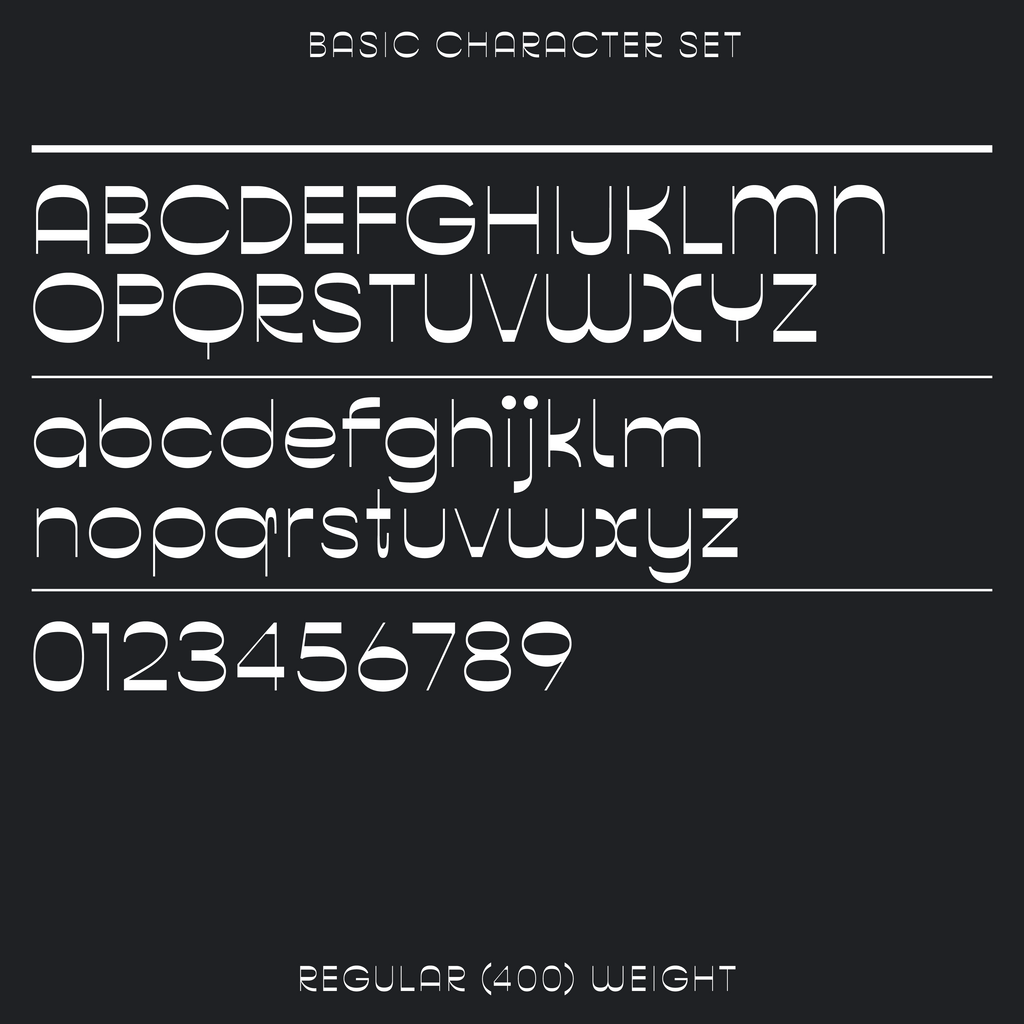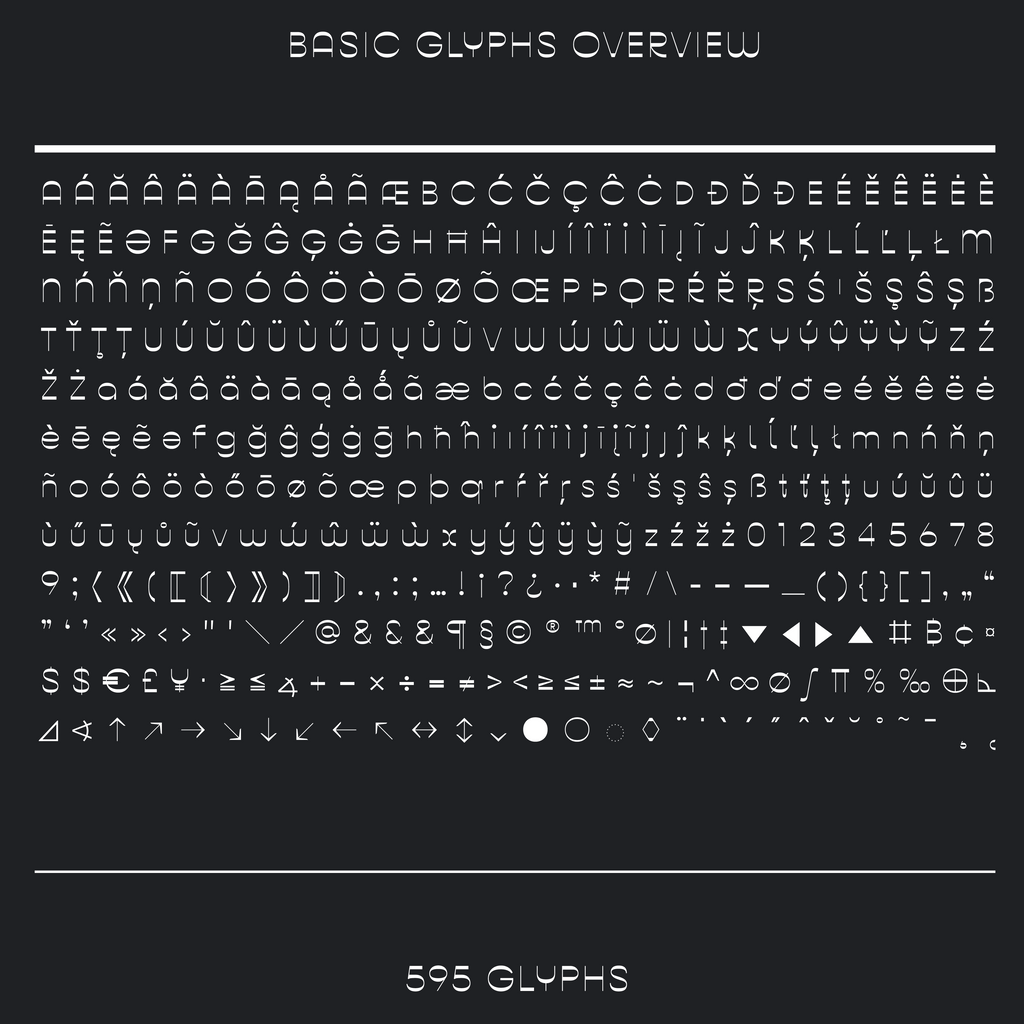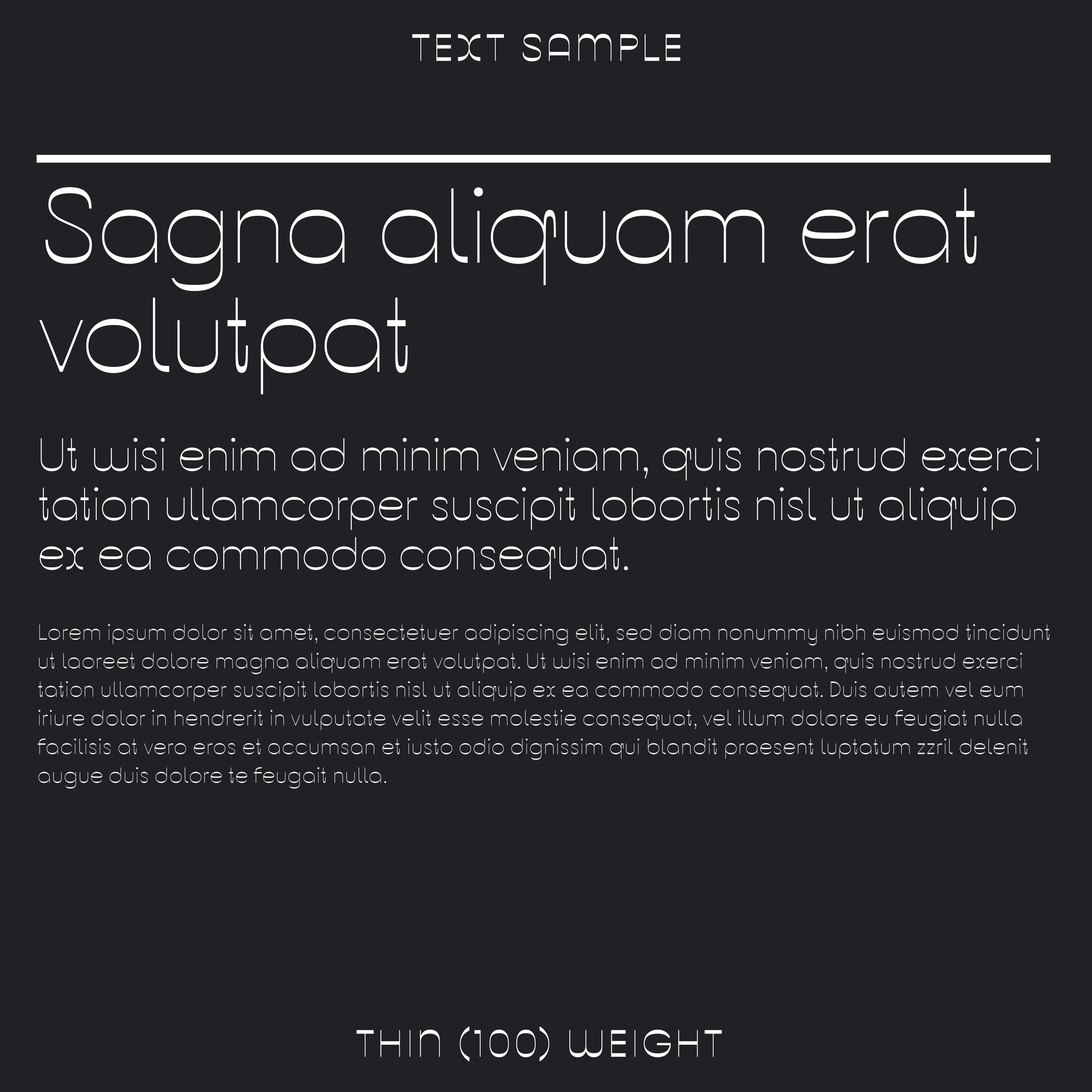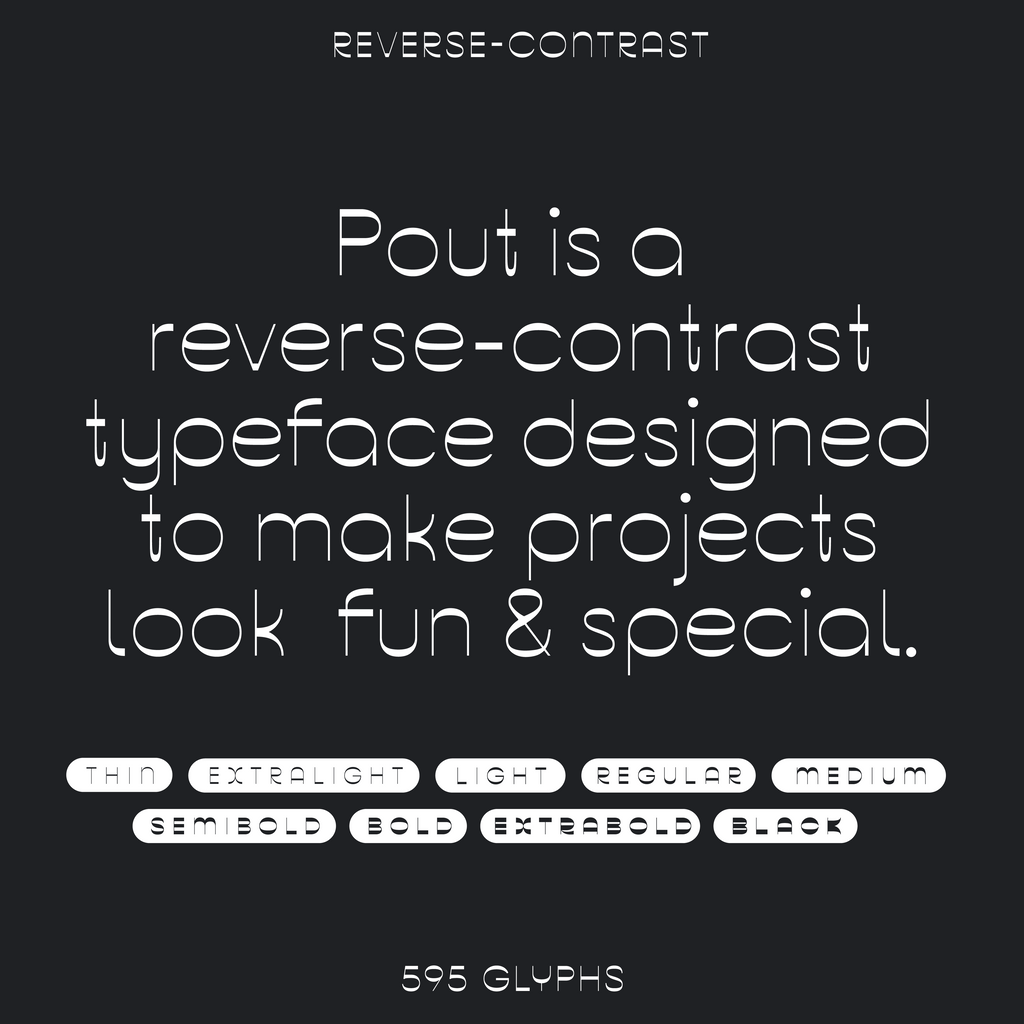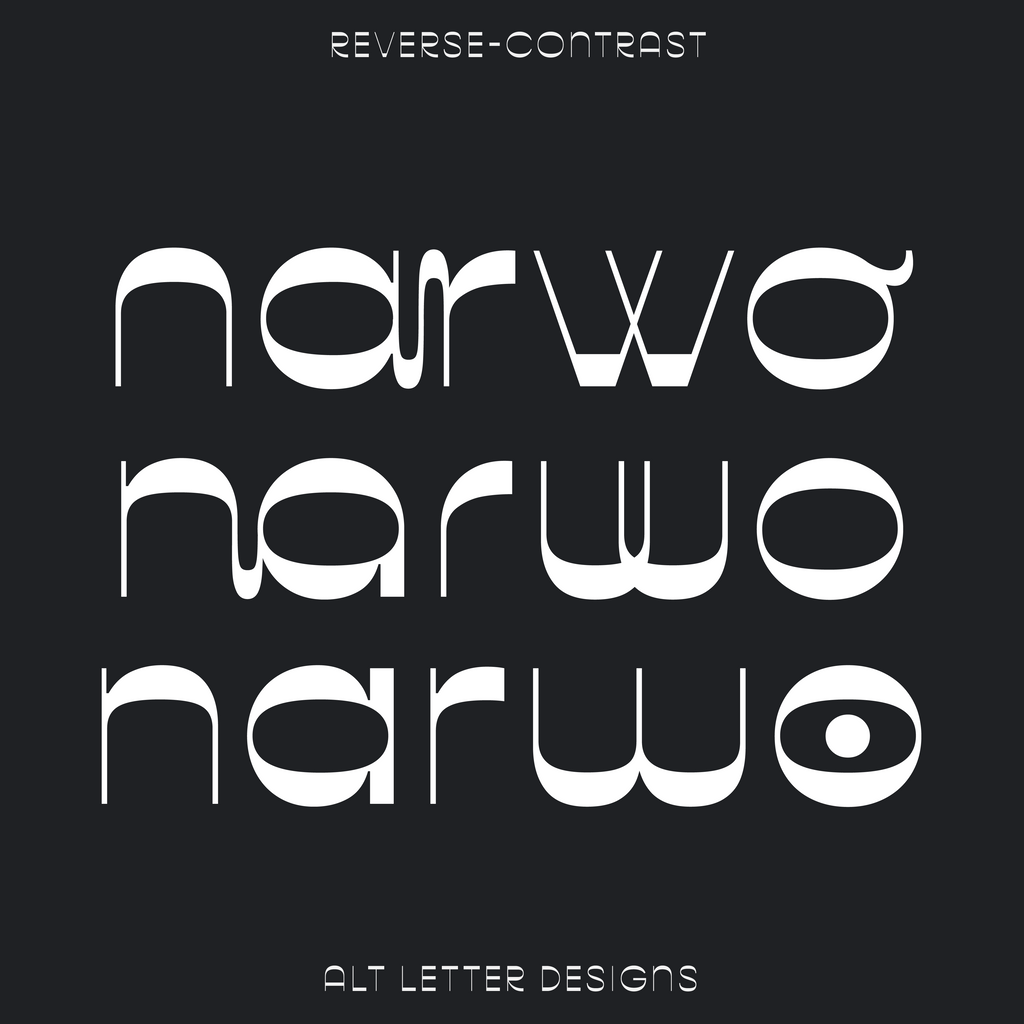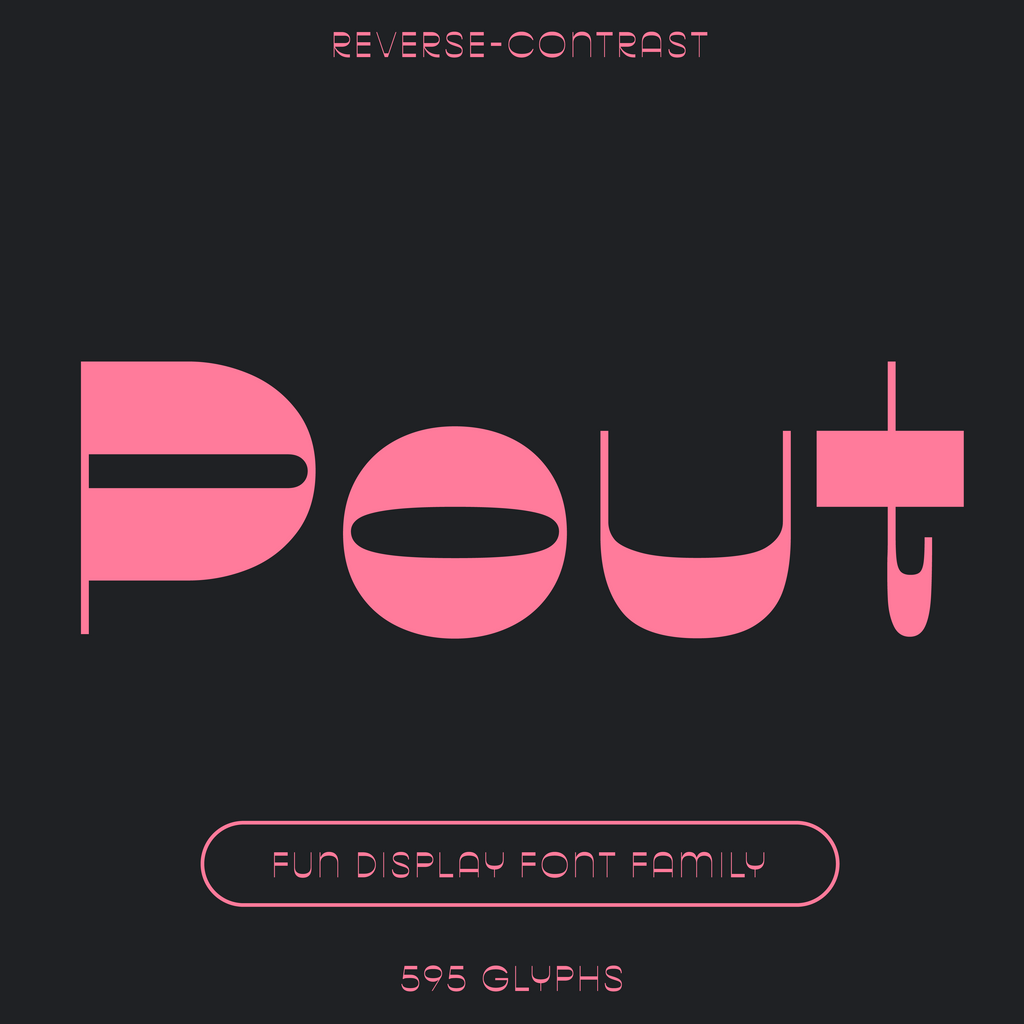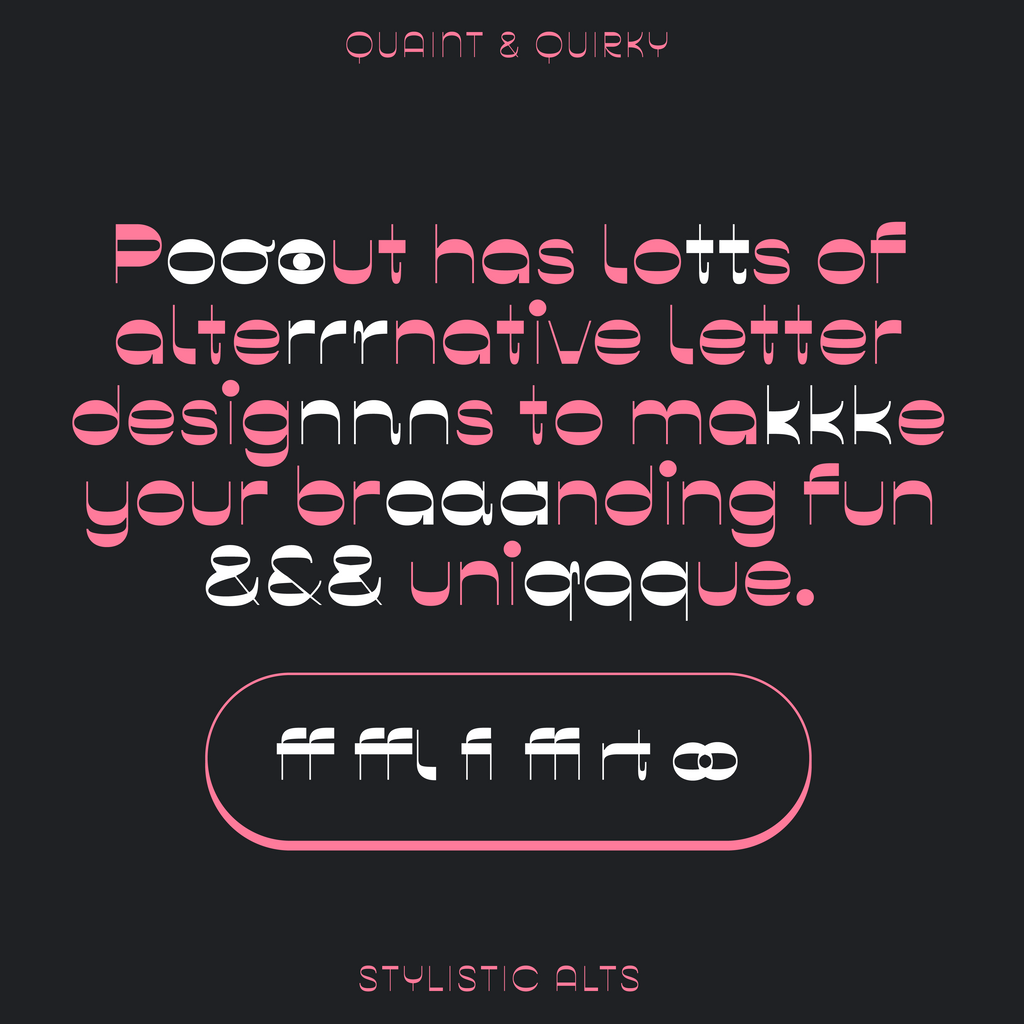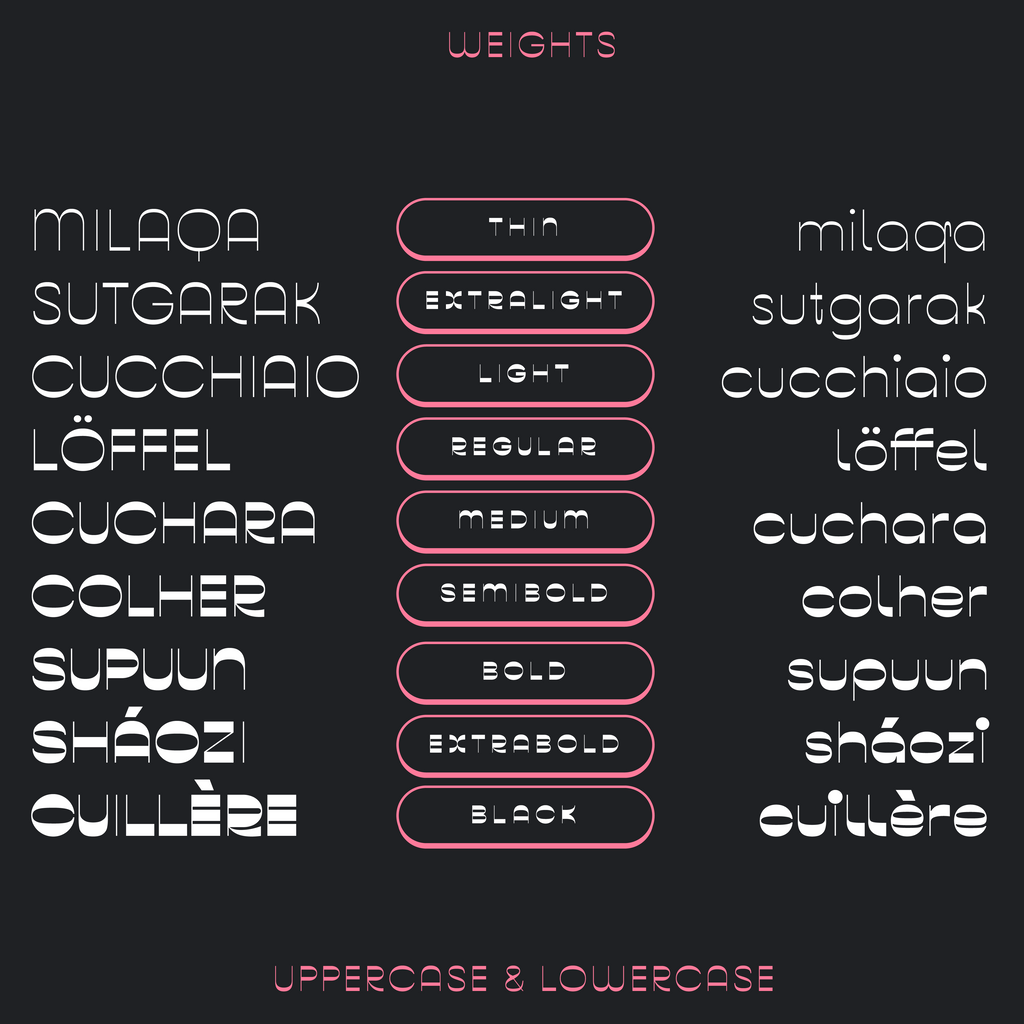
Pout, fun display font, reverse-contrast
Pout—Reverse Contrast Sans Serif Font, Rounded Shapes
Pout is a reverse-contrast typeface that makes projects look fun & special. Pout is whimsical, organic, and modern. This typeface is great for branding of beauty, restaurants, and projects that want presence. Pout has lots of alternative letter designs to make branding customizable. Available in 9 font weights.
Pout in detail
Variable font, weight axis wght 100-950, with 9 named weights: Thin, ExtraLight, Light, Regular, Medium, SemiBold, Bold, ExtraBold, Black. 618 glyphs, 425 characters.
Latin, Western European accents, Central European.
Case-sensitive punctuation.